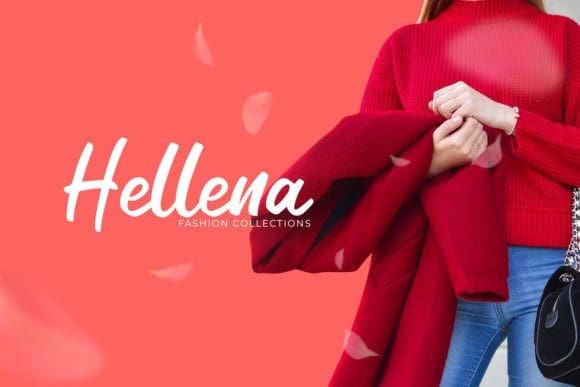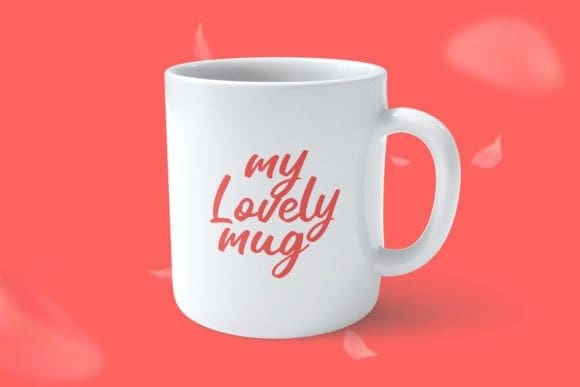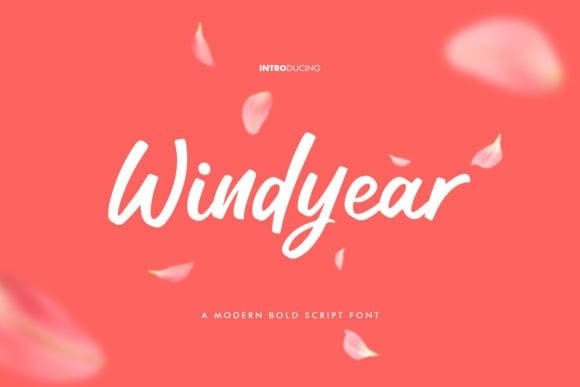
Windyear Script Font
Windyear Script Font is a clean, stylish, modern, and elegant script font perfect for posters, logos, magazines, book covers, banners, and many more! Get this amazing font, and use it to create lovely designs. It can easily be matched to an incredibly large set of projects, so add it to your creative ideas and notice how it makes them stand out!